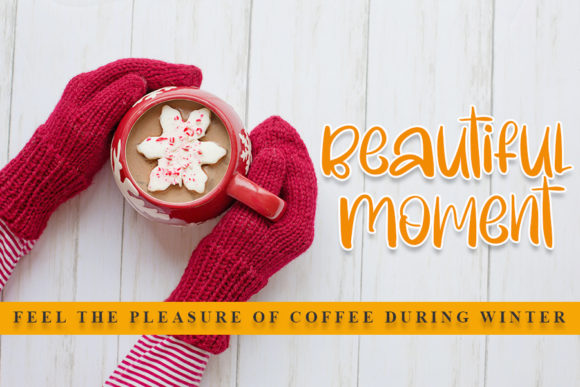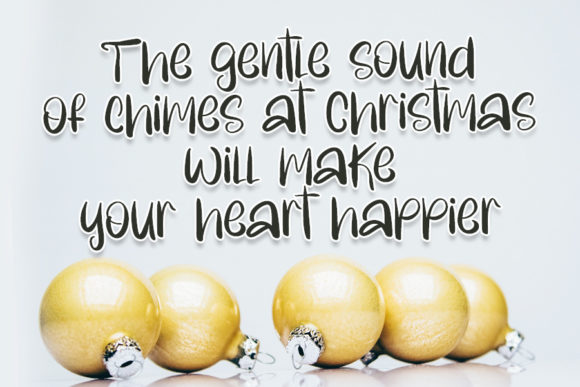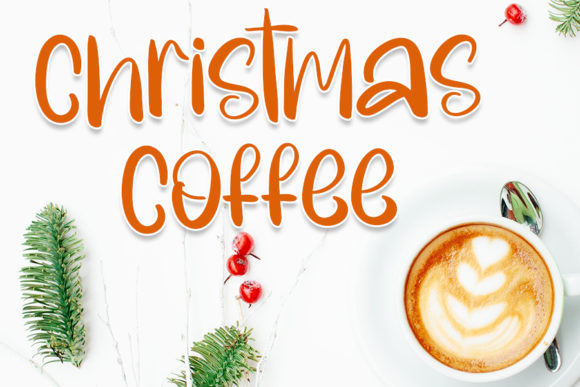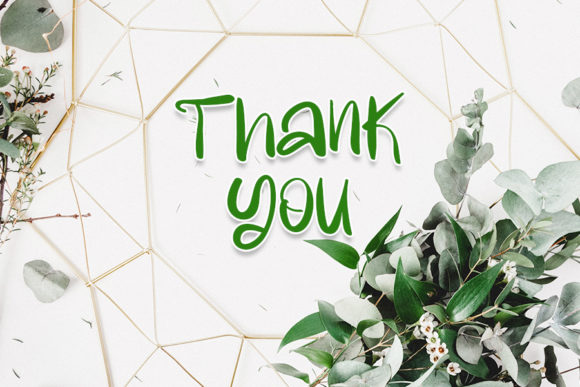
Introduction to Hot Coffee Font
Have you ever found yourself lost in a creative moment, pouring your heart and soul into a design project, only to be held back by the perfect font to bring it all together? That’s exactly where the Hot Coffee Font comes in – a beautiful, high-quality handwritten font that adds a touch of romance and joy to any design.
As a designer, you’re constantly on the lookout for the perfect design resource to elevate your creative project. And when it comes to handwritten fonts, the Hot Coffee Font stands out from the crowd. With its relaxed and flowing style, it’s perfect for adding a personal touch to your designs, whether you’re working on a wedding invitation, a blog post, or a social media graphic.
Key Features of Hot Coffee Font
- High-quality design resource with a unique, modern style suitable for creative projects
- Includes a range of characters, including uppercase and lowercase letters, numbers, and punctuation
Honest Review: Hot Coffee Font
As a designer, I’m always on the lookout for high-quality design resources that can elevate my creative projects. Recently, I came across the Hot Coffee Font, and I must say it’s a great addition to my design toolkit.
While the Hot Coffee Font is a great resource, there are a few limitations to be aware of. ⚠️ One of the main limitations is that the font is not available in as many weights as I would like. For example, there’s no bold or italic version available.
Some tips for getting the most out of Hot Coffee Font include using it with a transparent background to create a more modern look, and pairing it with other design resources for a cohesive feel.
Common use cases for Hot Coffee Font include creating social media graphics, designing websites, and developing marketing materials.